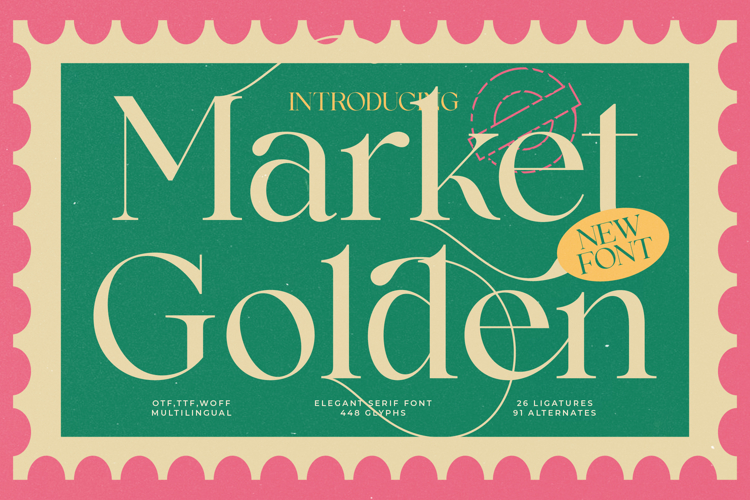
Market Golden - Elegant Serif Font
Elevate your design customization options with an extensive glyph set featuring 26 refined ligatures and 91 stylistic alternates. These OpenType features allow designers to craft truly unique wordmarks and titles, injecting a sense of bespoke craftsmanship into every project. Market Golden - Elegant Serif Font offers unparalleled flexibility for creating dynamic and engaging text compositions, making it a truly versatile asset for detailed typographic work and stylized logo design.